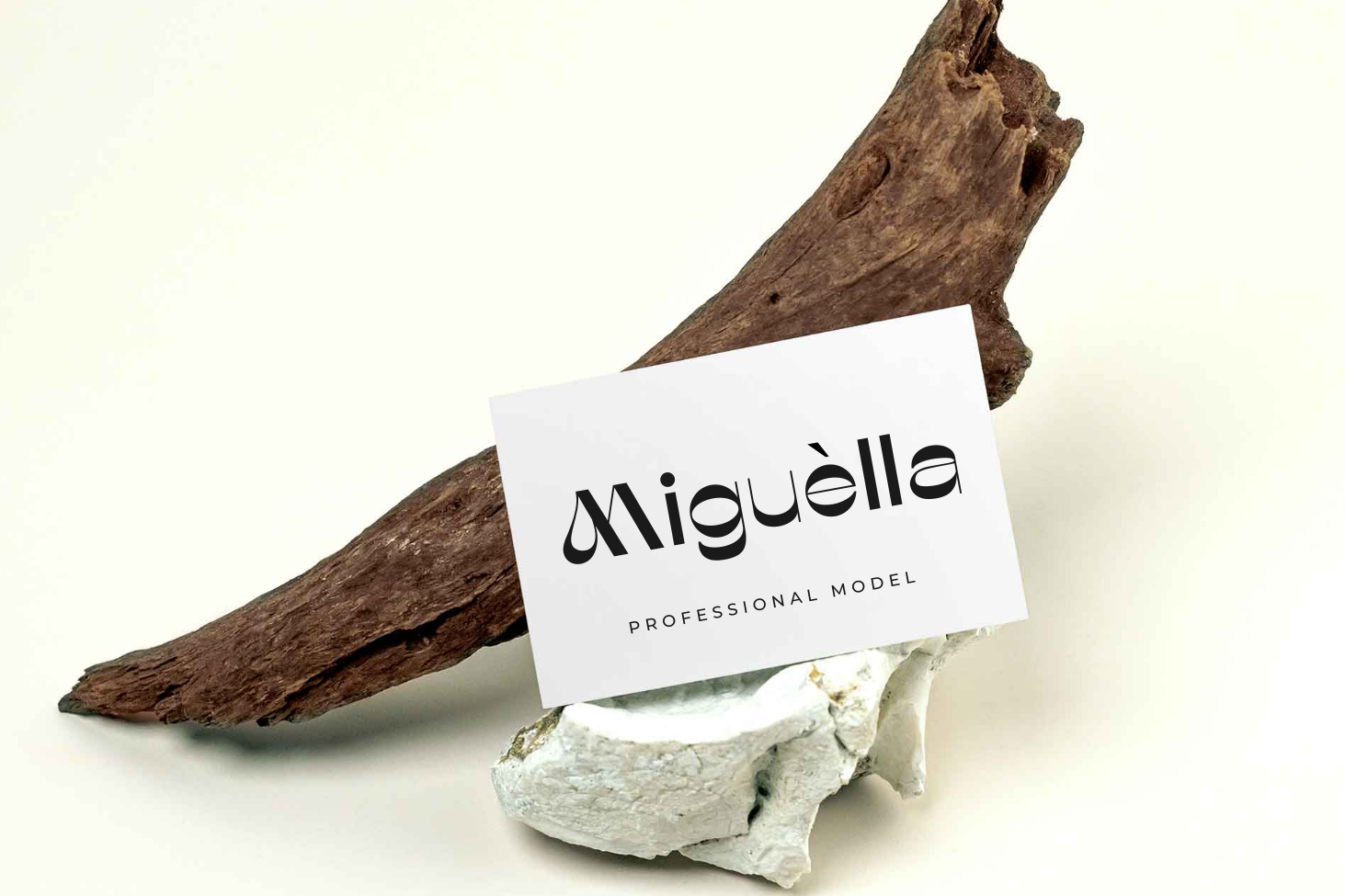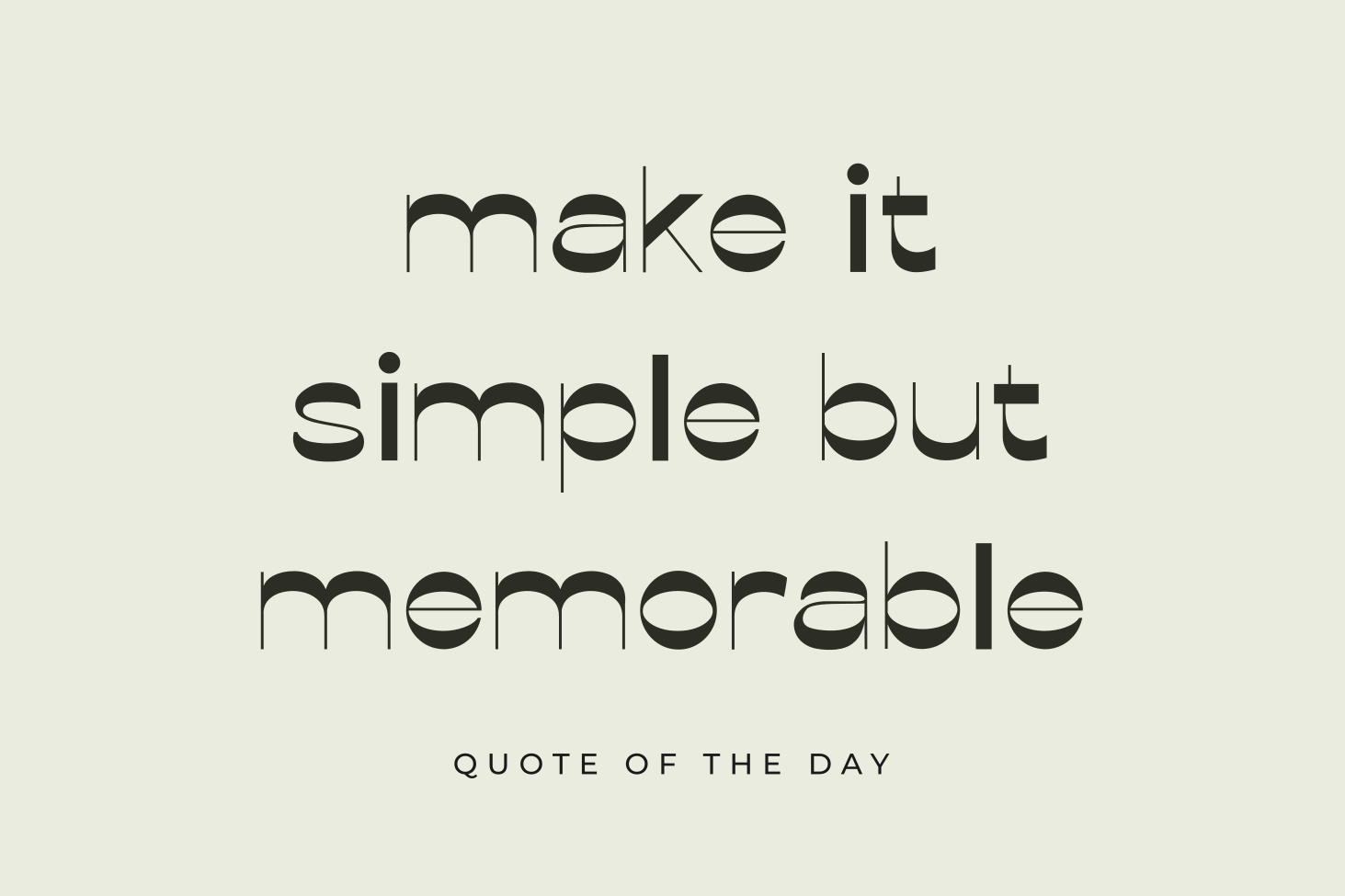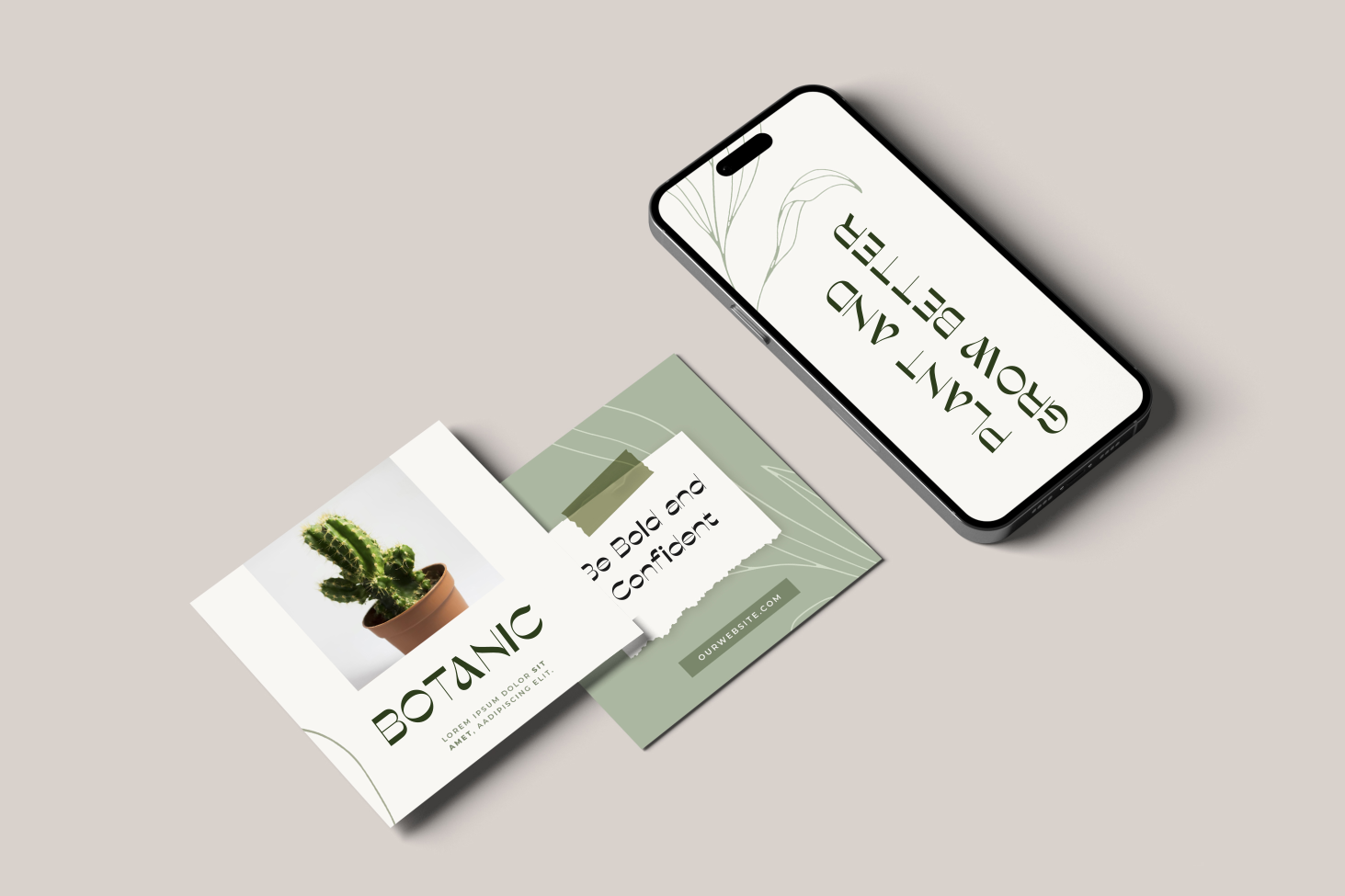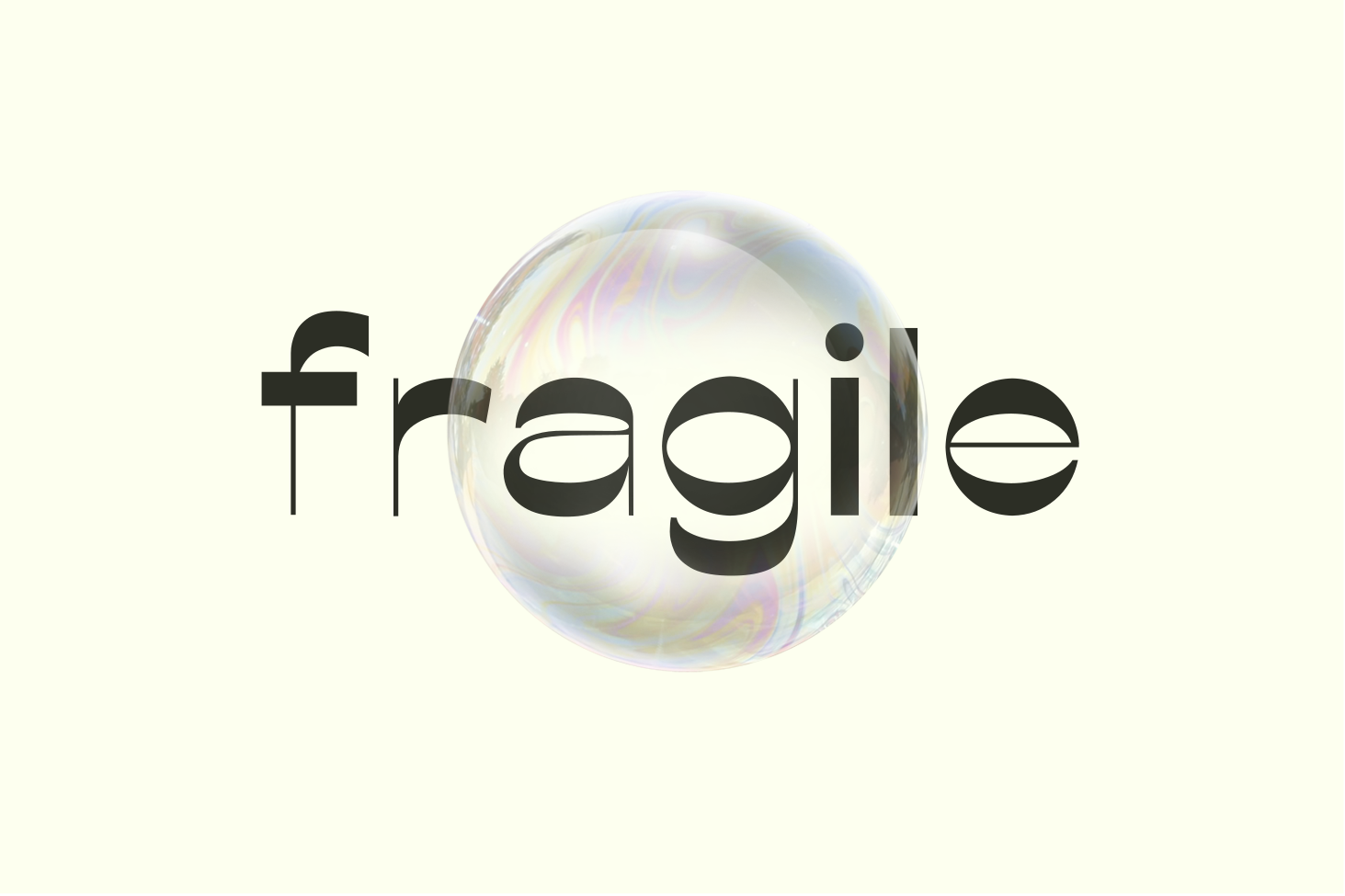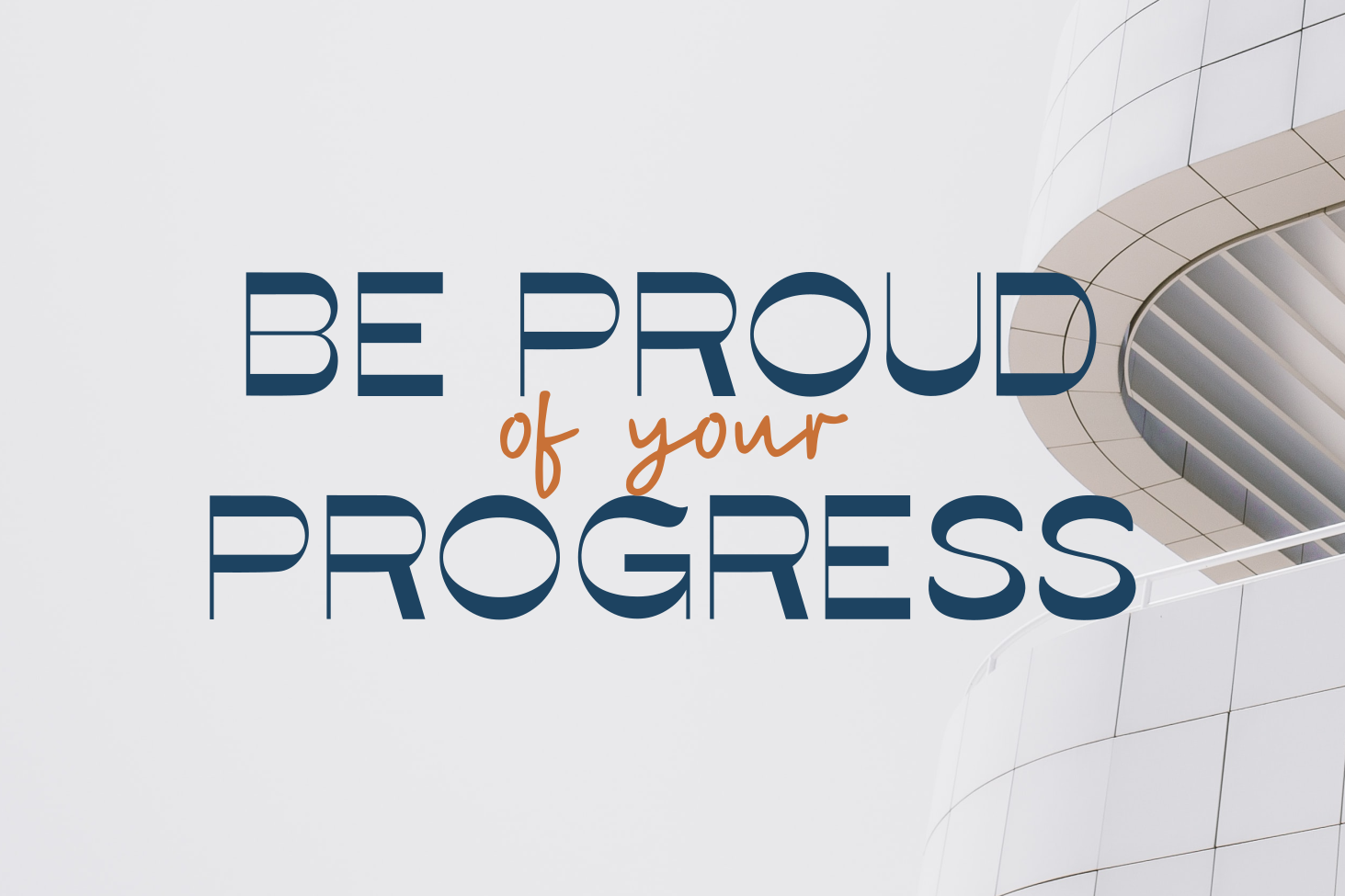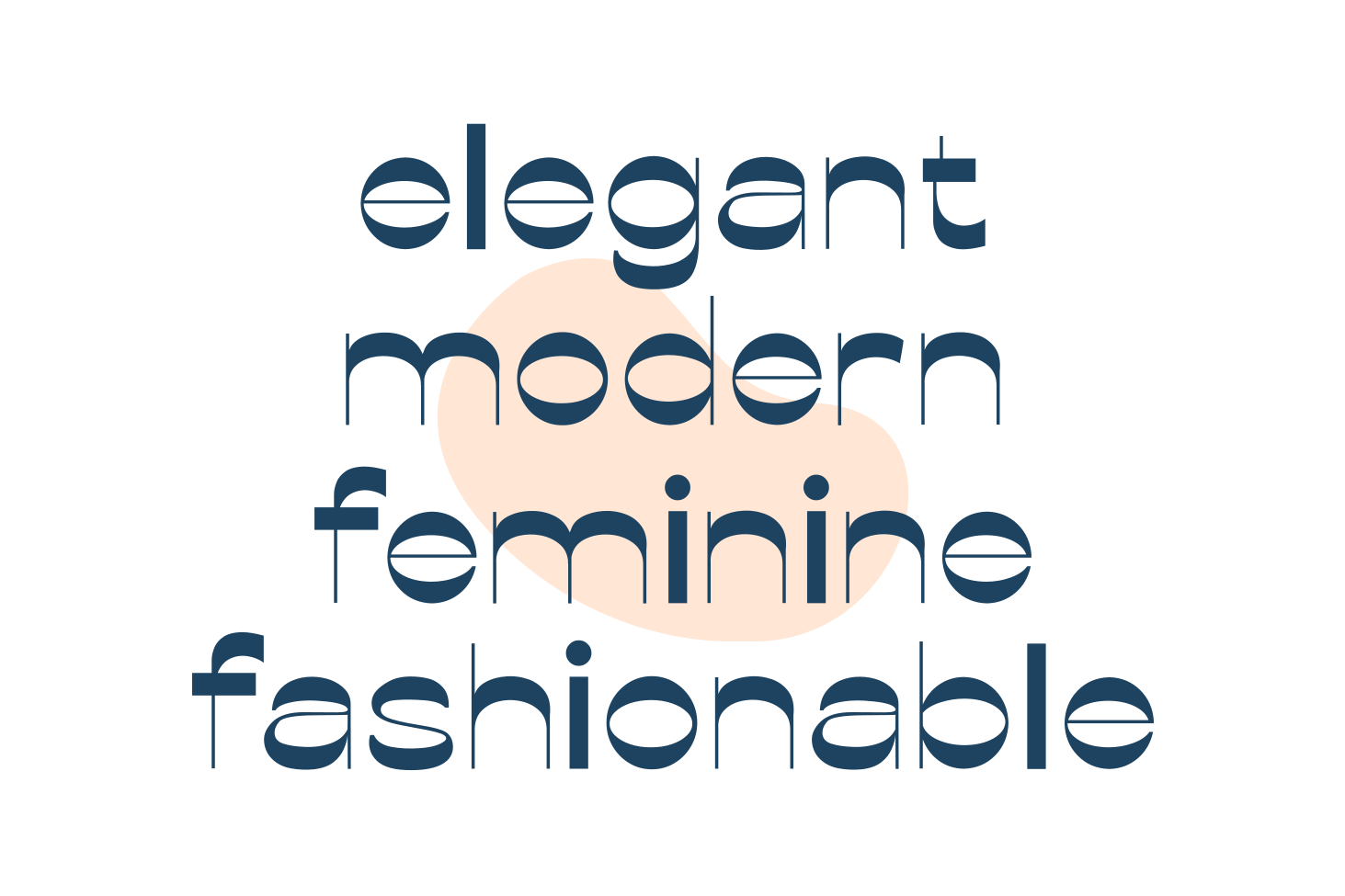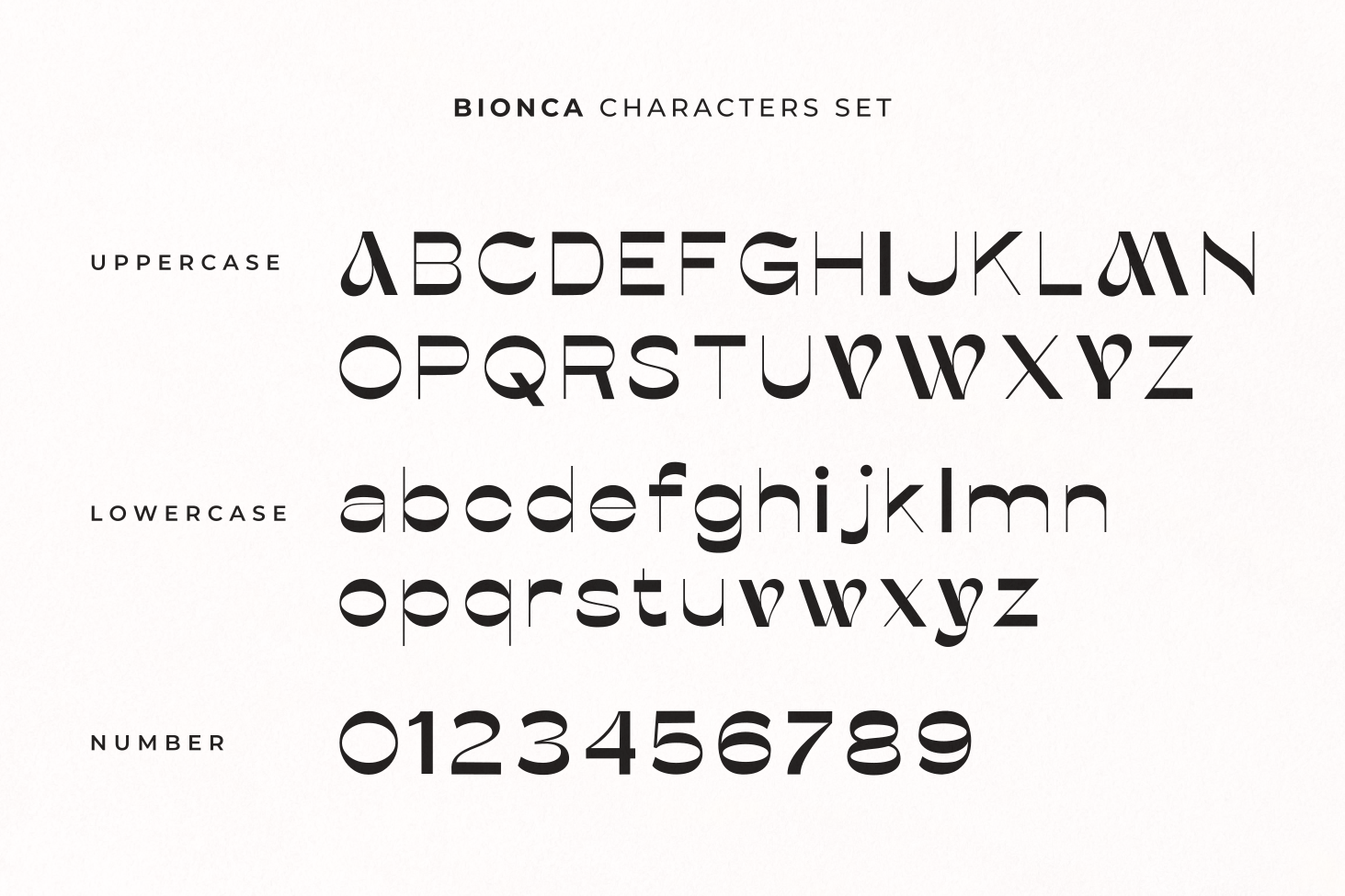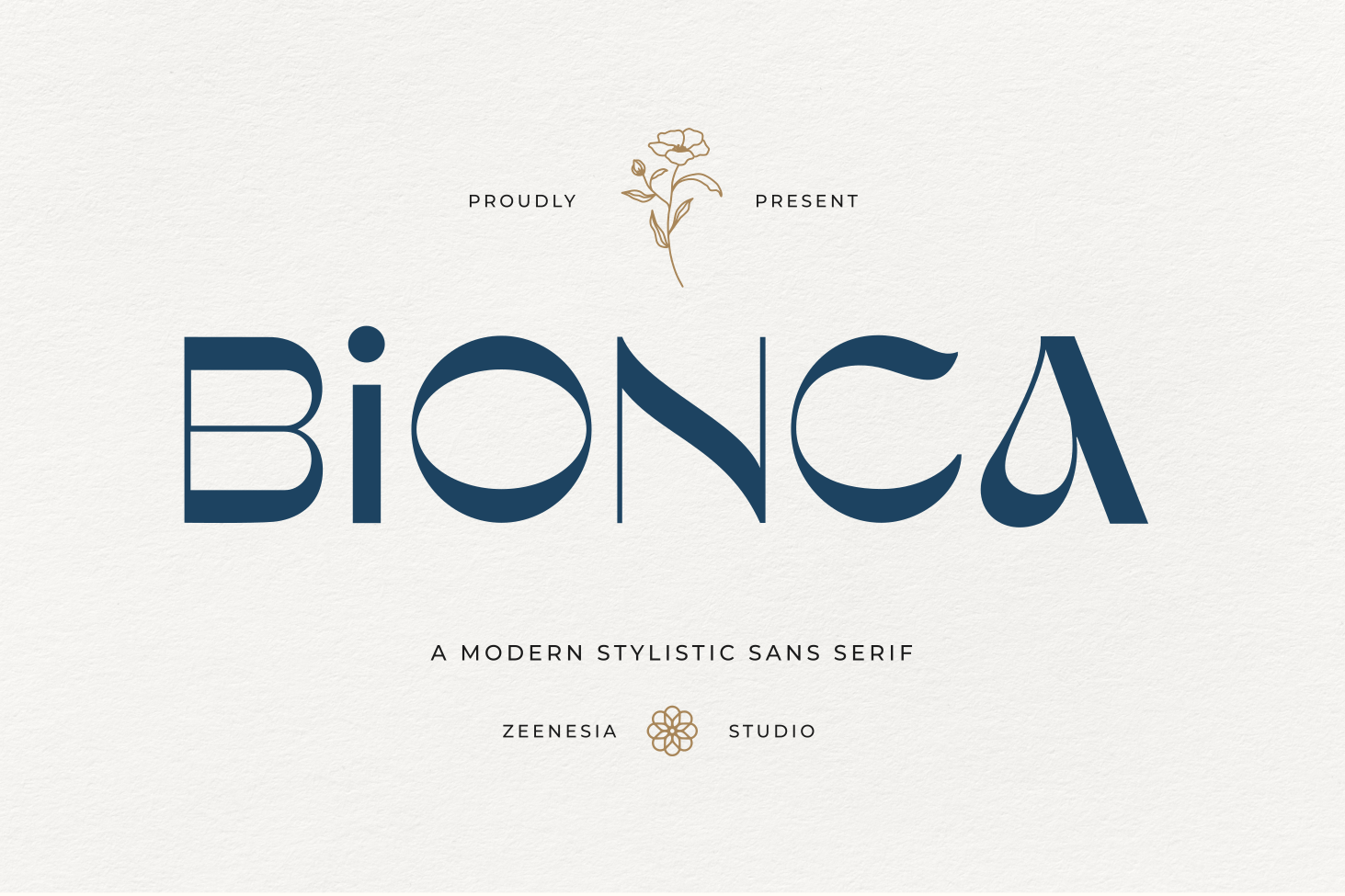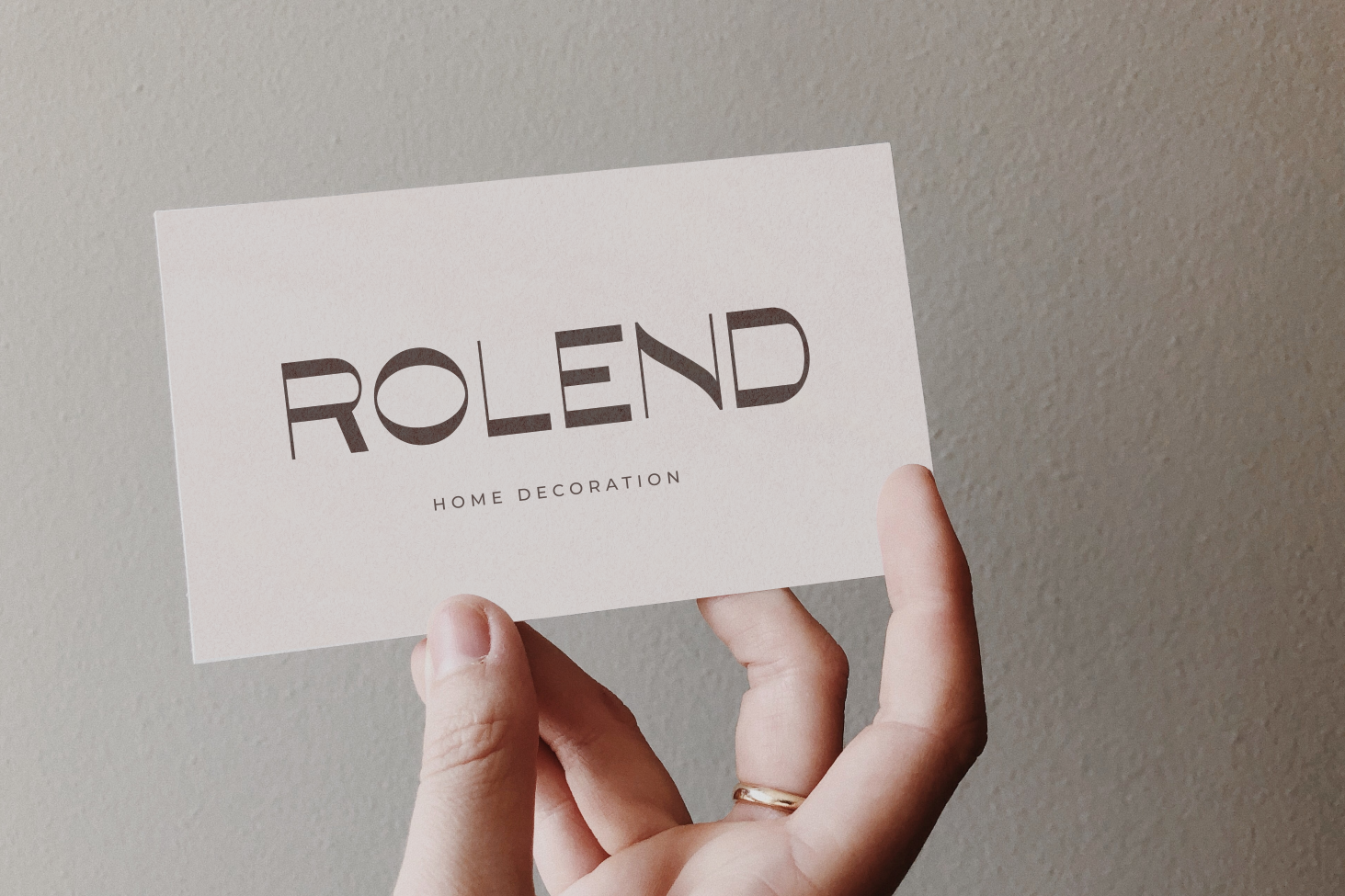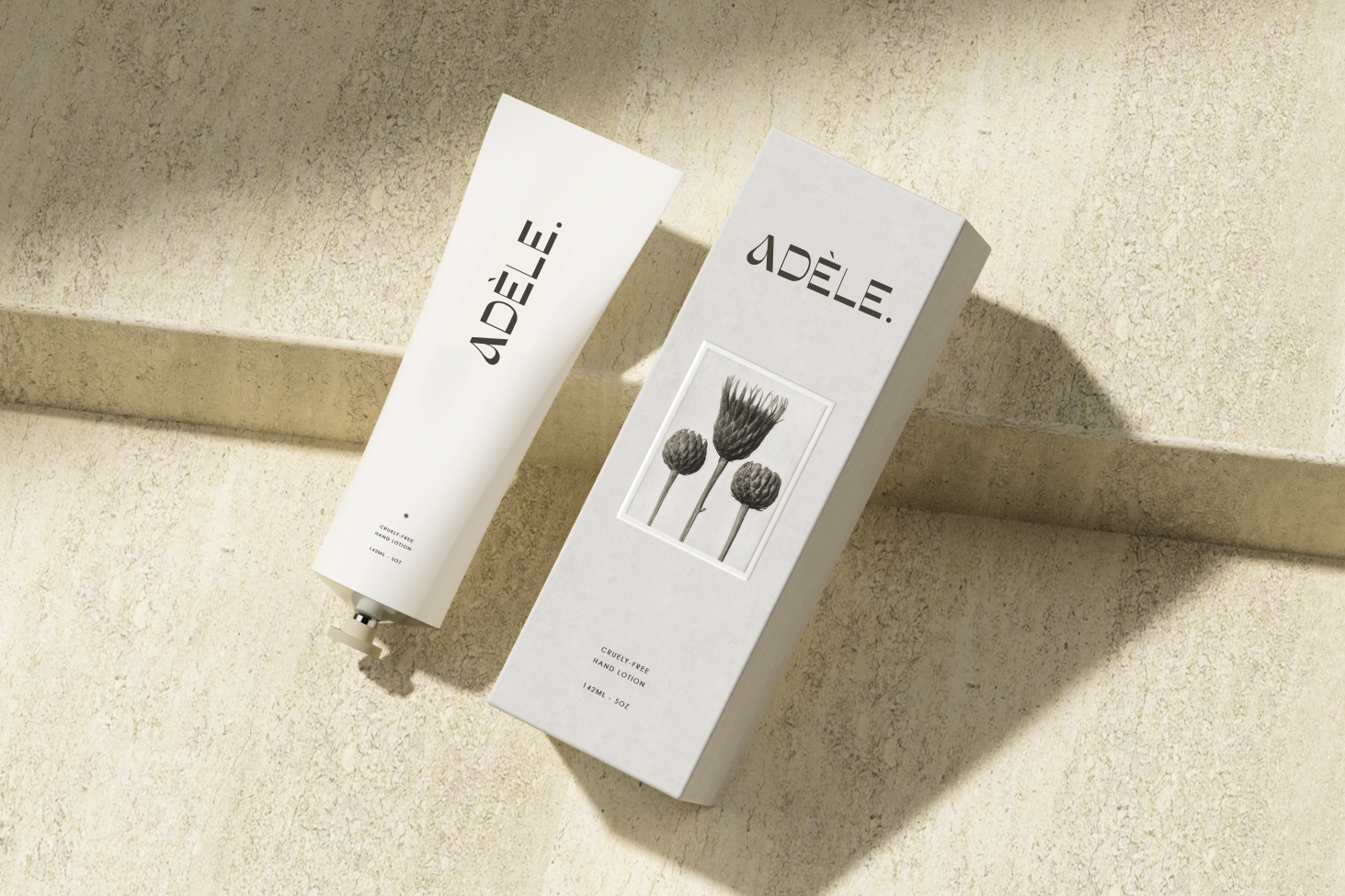
Bionca
BIONCA from zeeneisa is a bold modern display font with sans serif style. It's modern and classic font with a unique and deference look . Perfect if you need a dose of fun in your project. Perfect for editorial projects, Logo design, web font, clothing branding, product packaging, magazine headers, or simply as a stylish text overlay to any background image.